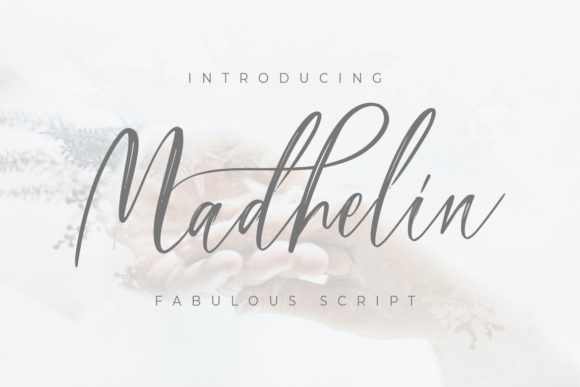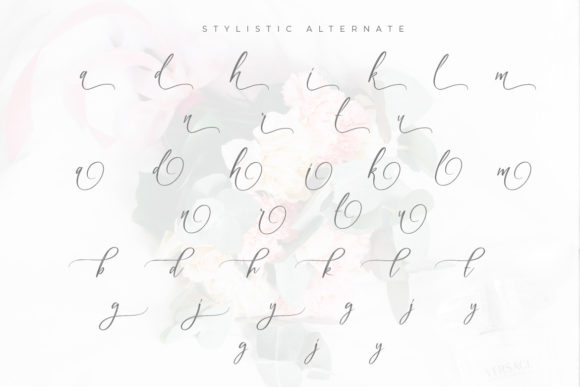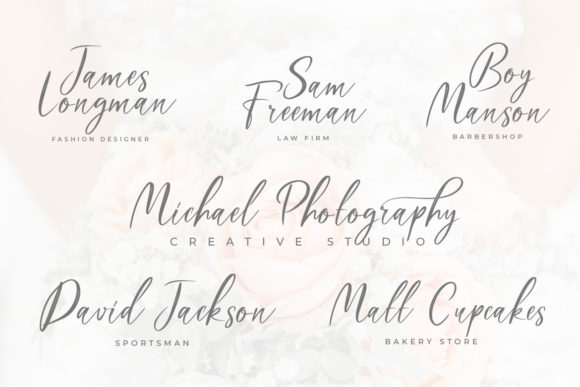
About Madhelin Script Font
Madhelin Script is a thin lettered and graceful script font that will capture your heart with its ravishing style. With its delicate and elegant letterforms, Madhelin Script is the perfect choice for creating gorgeous wedding invitations, beautiful stationary art, eye-catching social media posts, and a wide range of other projects. Its slender and graceful design adds a touch of sophistication and charm to any creative endeavor. Whether you’re planning a special event or simply want to add a touch of elegance to your designs, Madhelin Script will help you create stunning and visually striking results. Fall in love with this font and let it elevate your creations to new levels of beauty and allure.